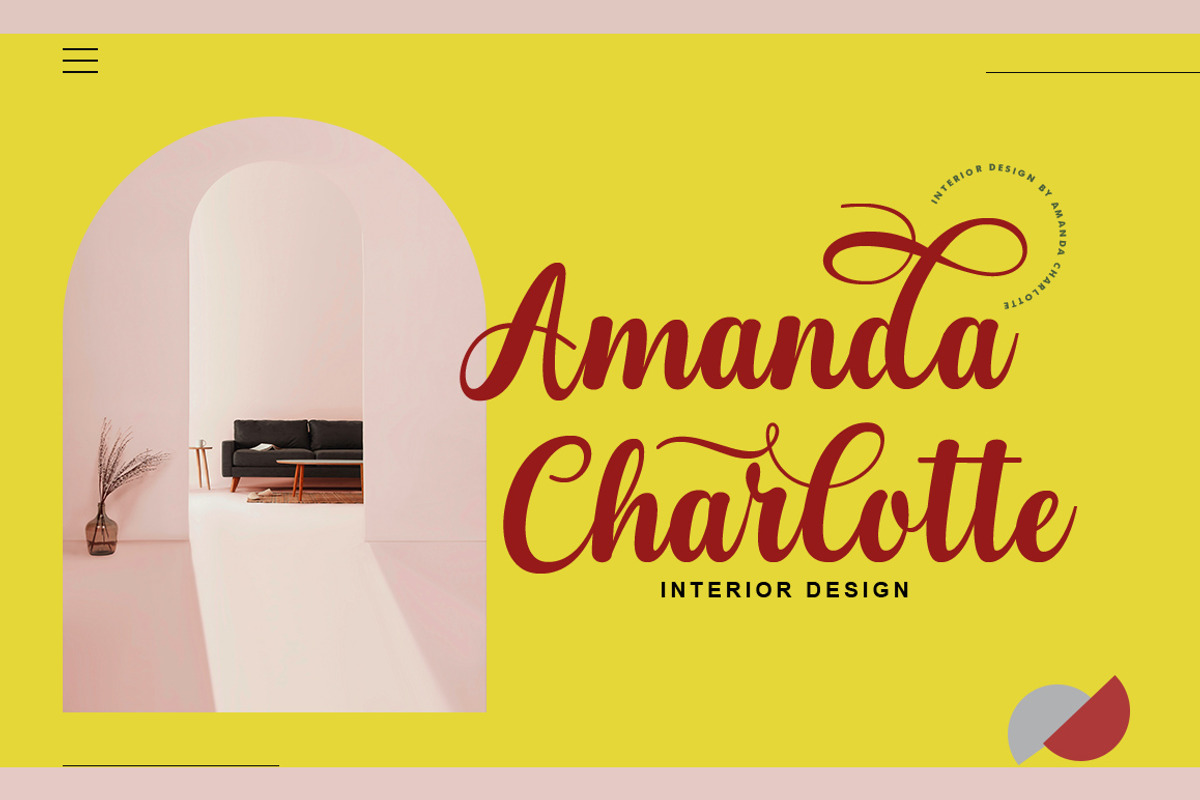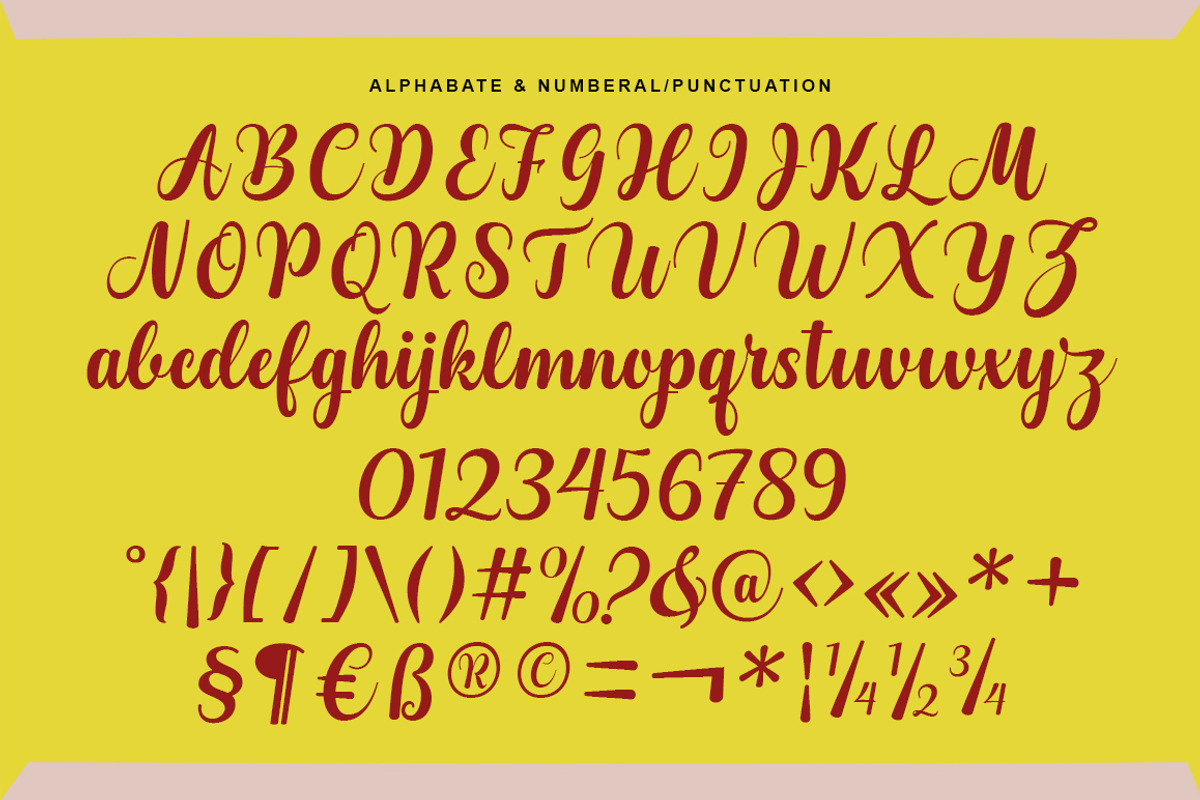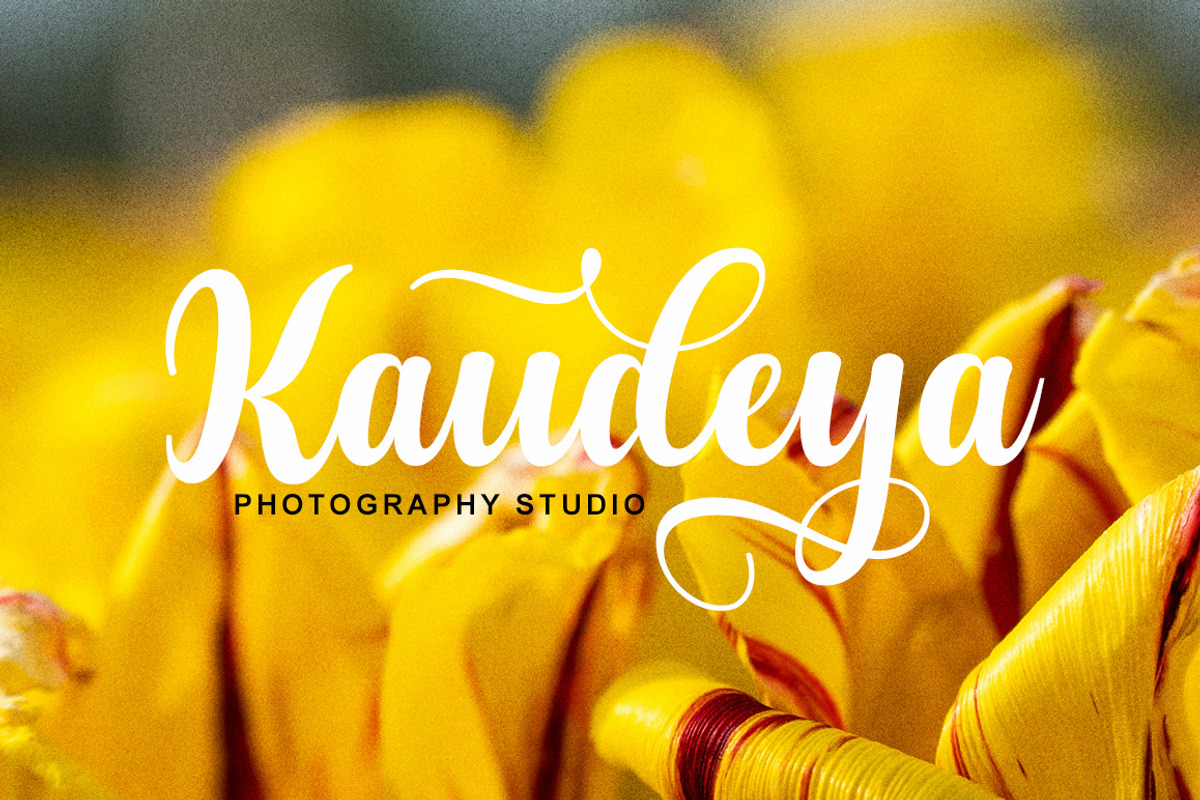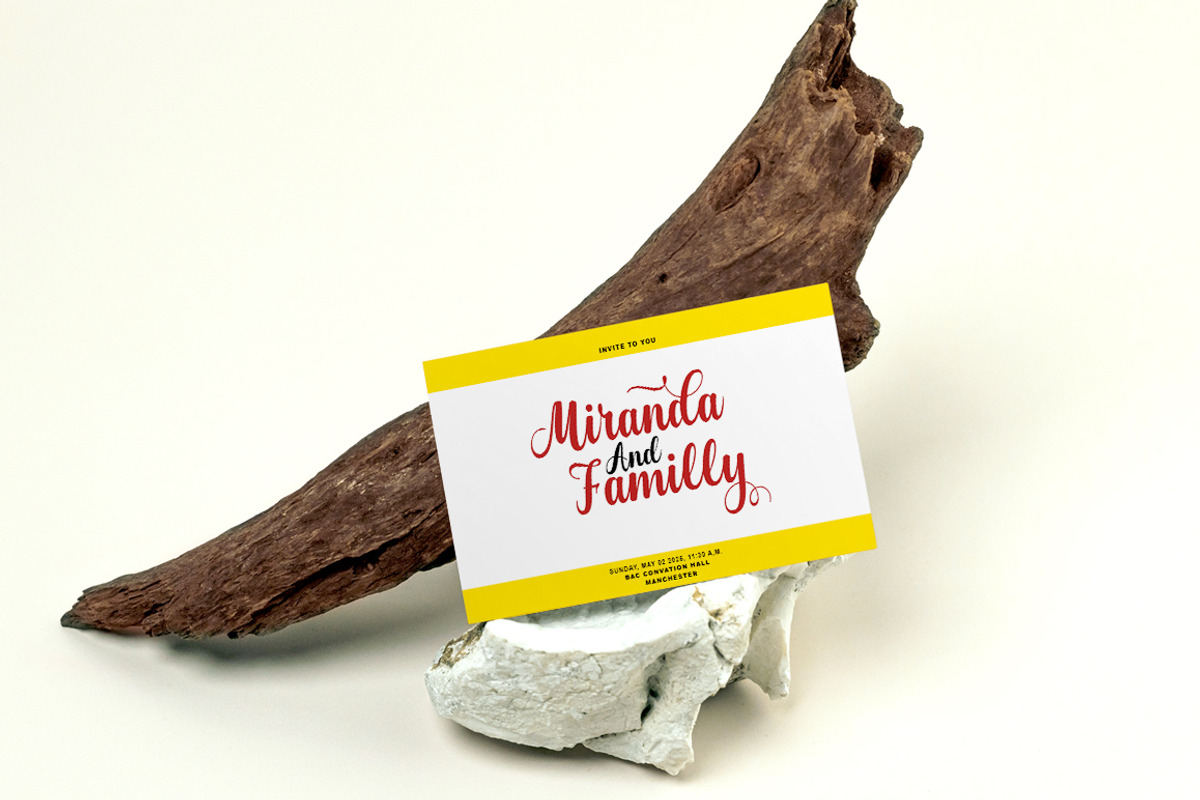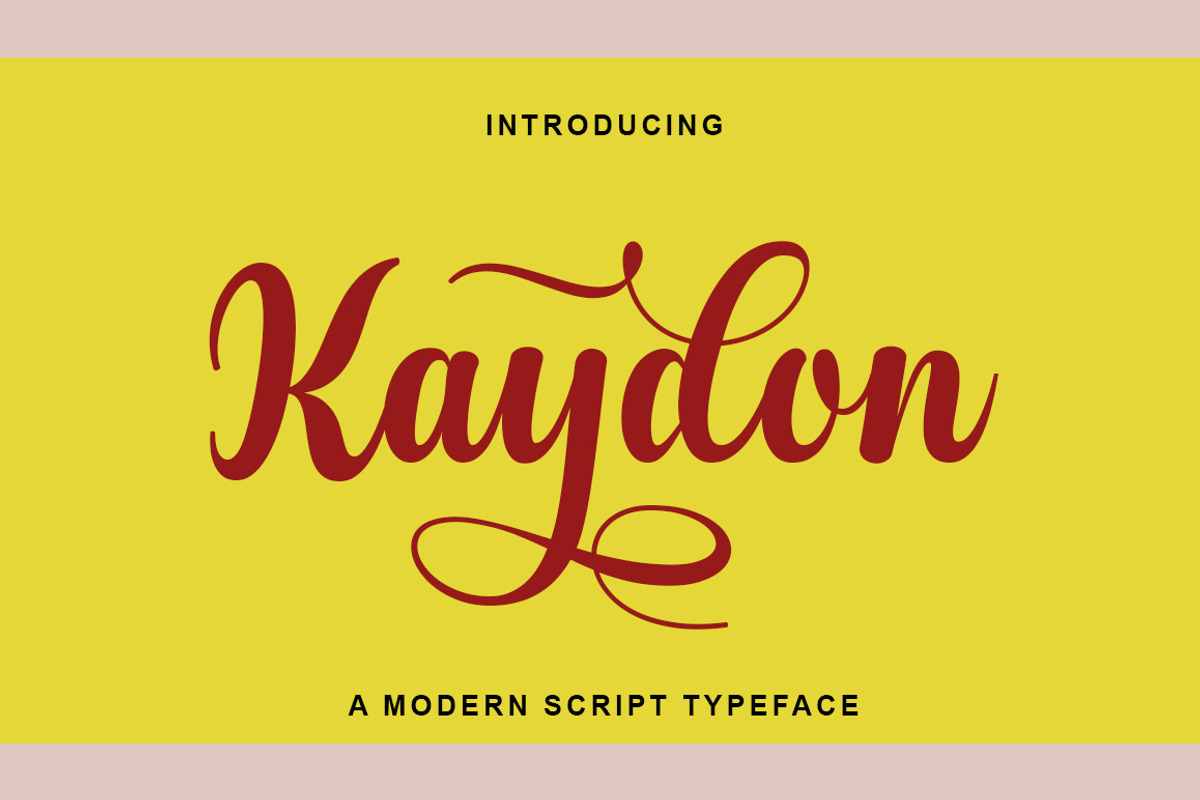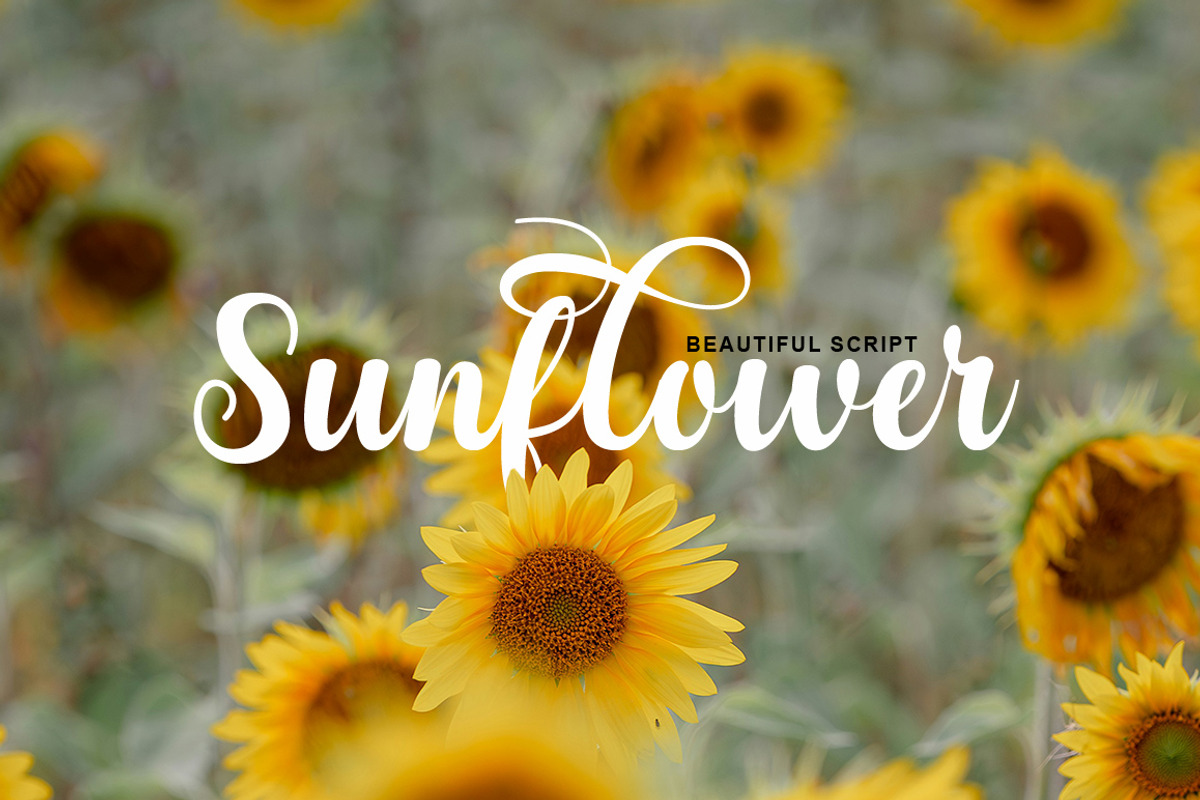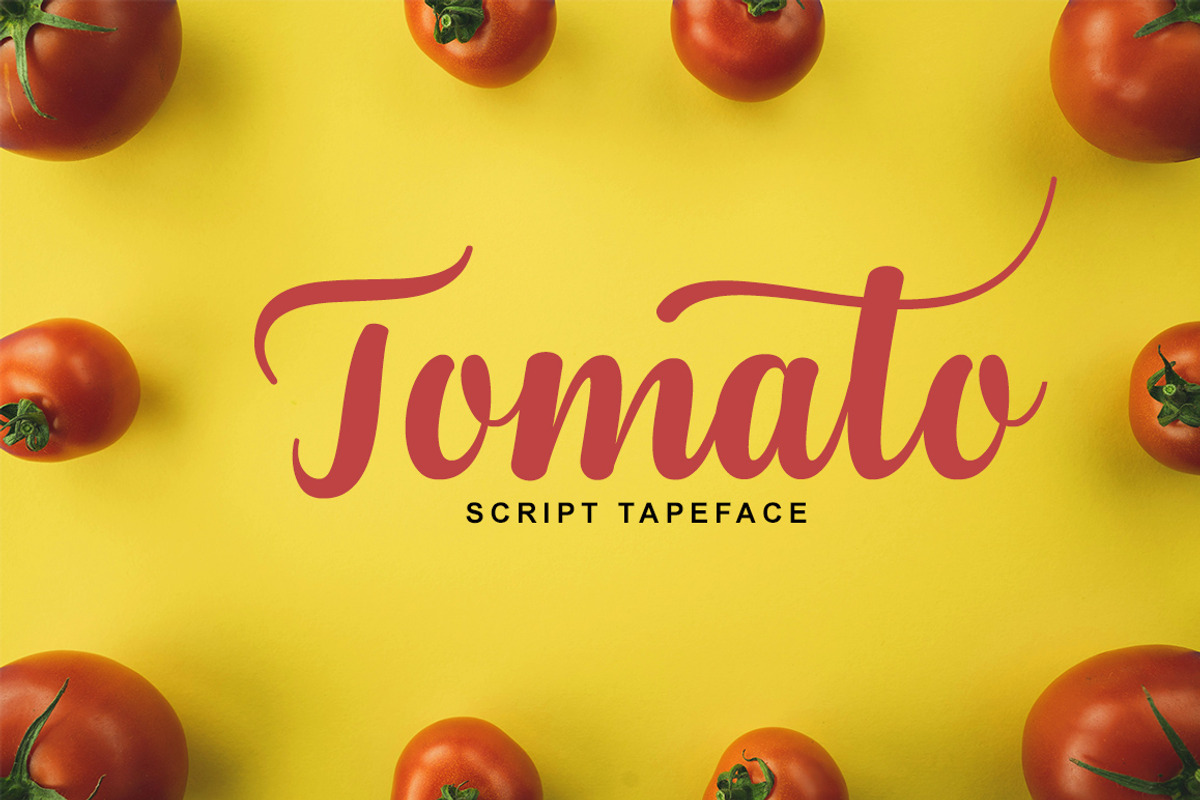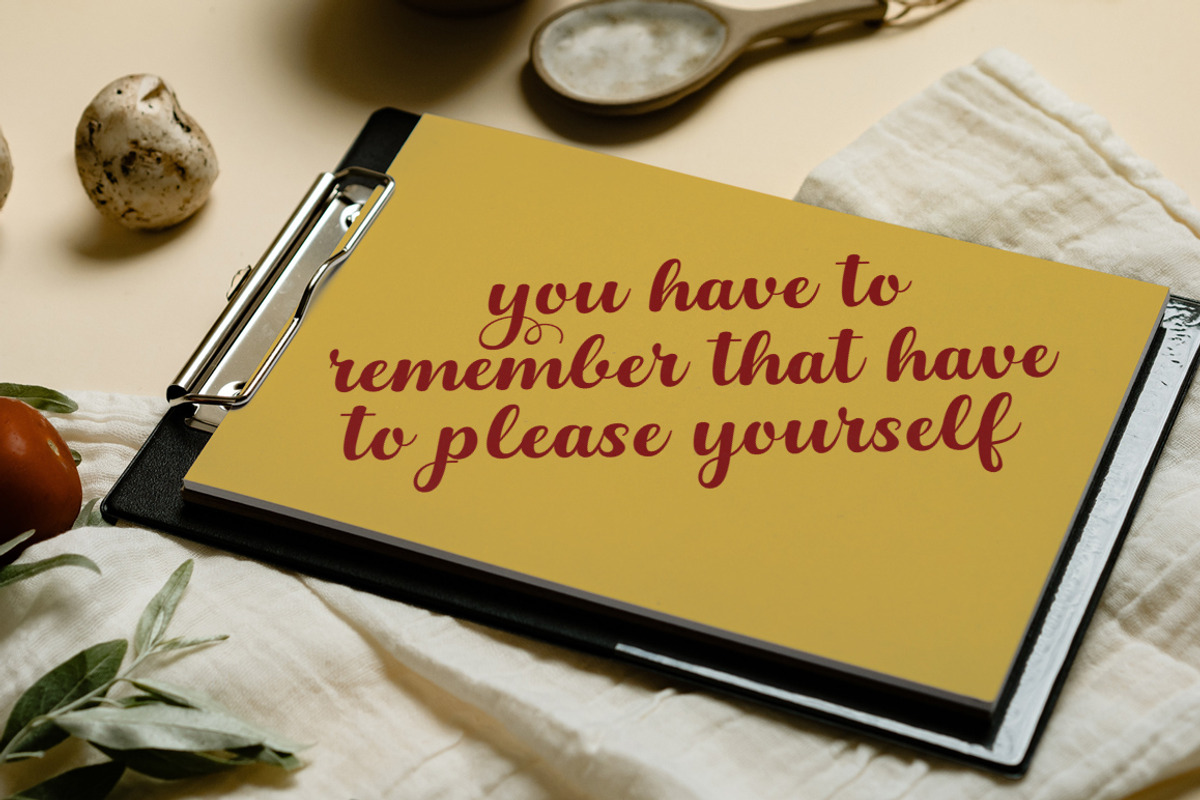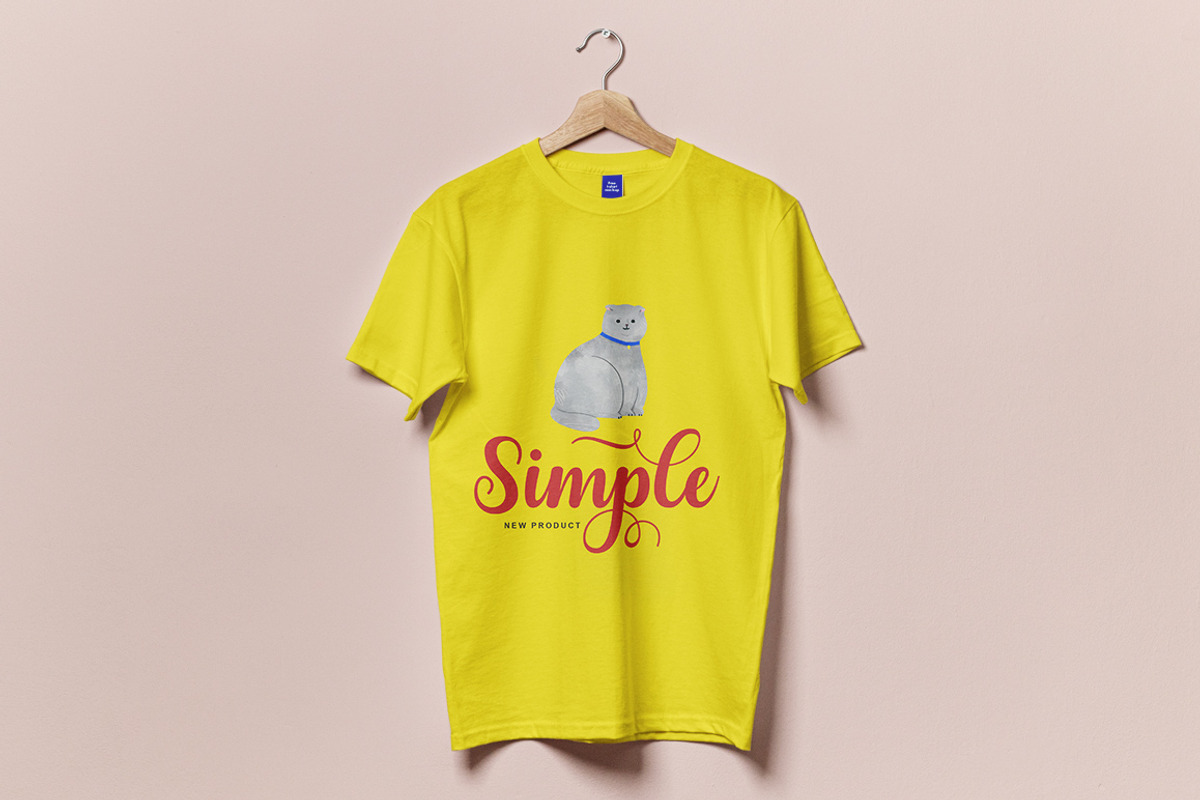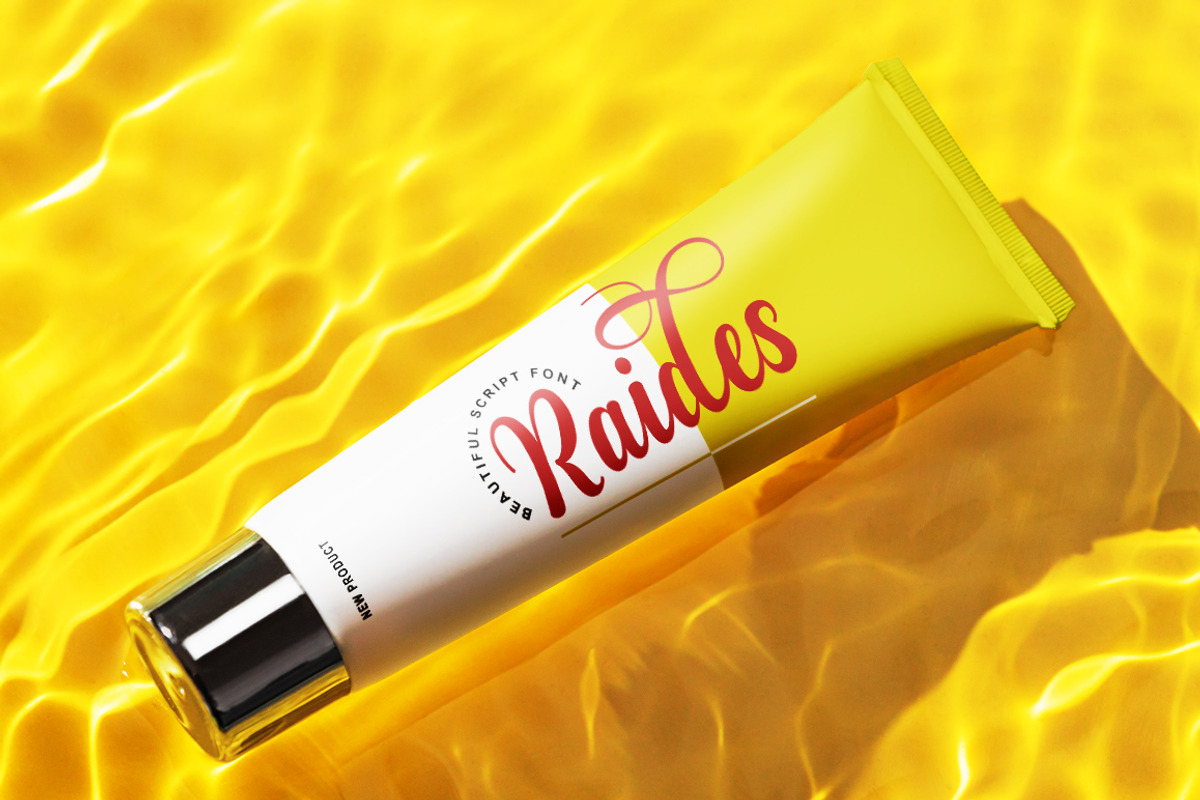
Kaydon
Kaydon Script is a script-style typeface that combines classic elements with a modern twist. The font features smooth, elegant lines with fluid strokes, similar to neat, artistic handwriting. The letters in Kaydon Script tend to flow into each other, creating a harmonious, cohesive flow, making it suitable for design projects such as logos, invitations, or graphic designs that require a soft, romantic aesthetic.